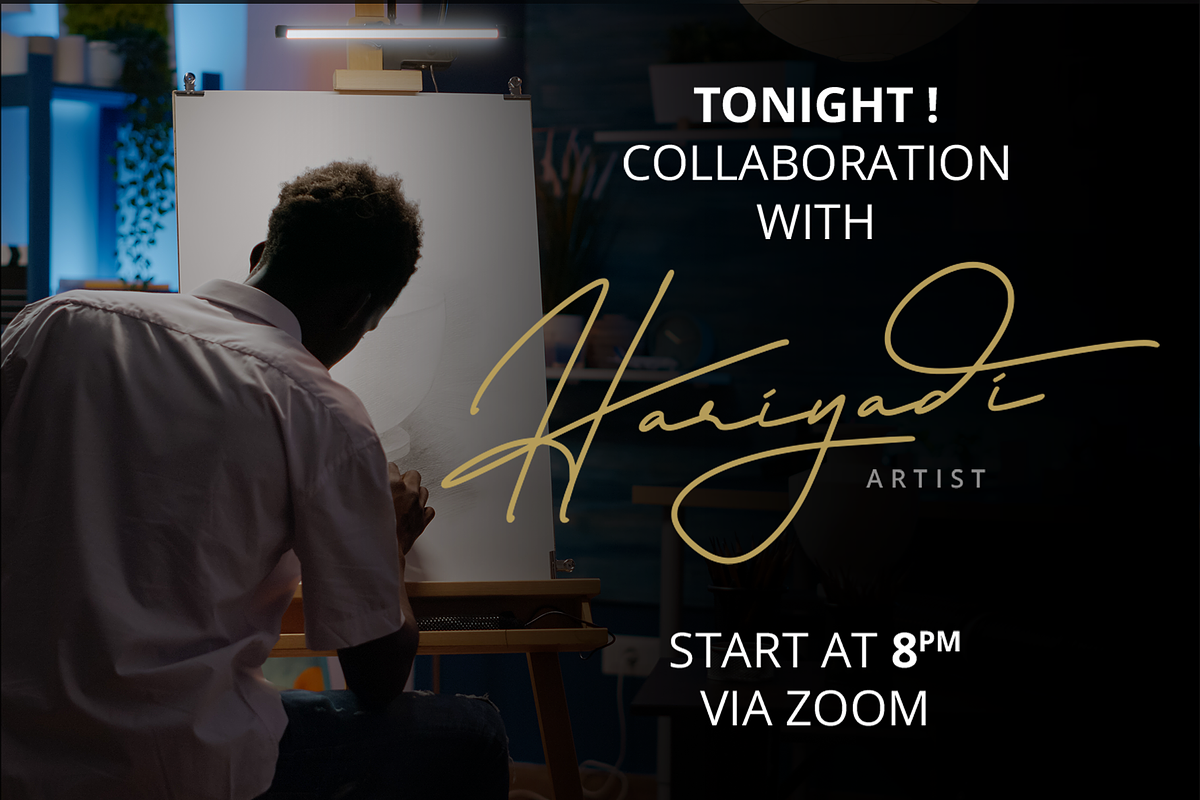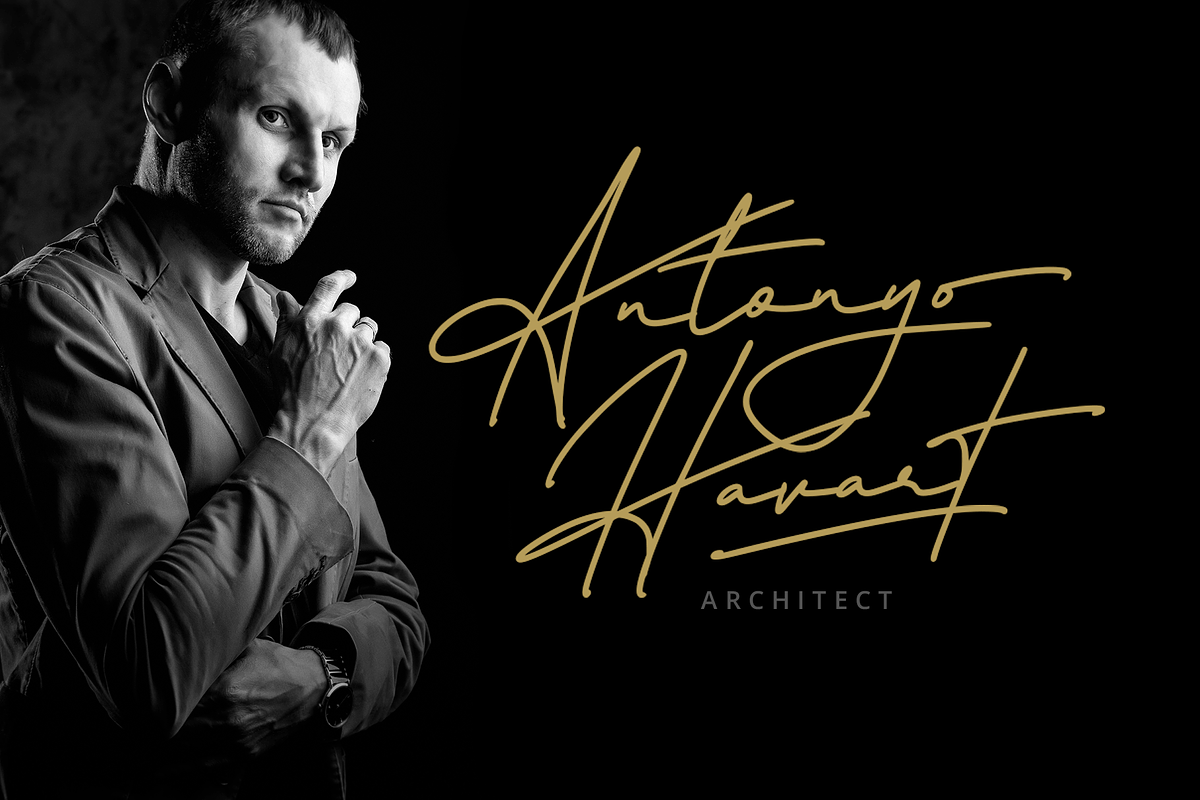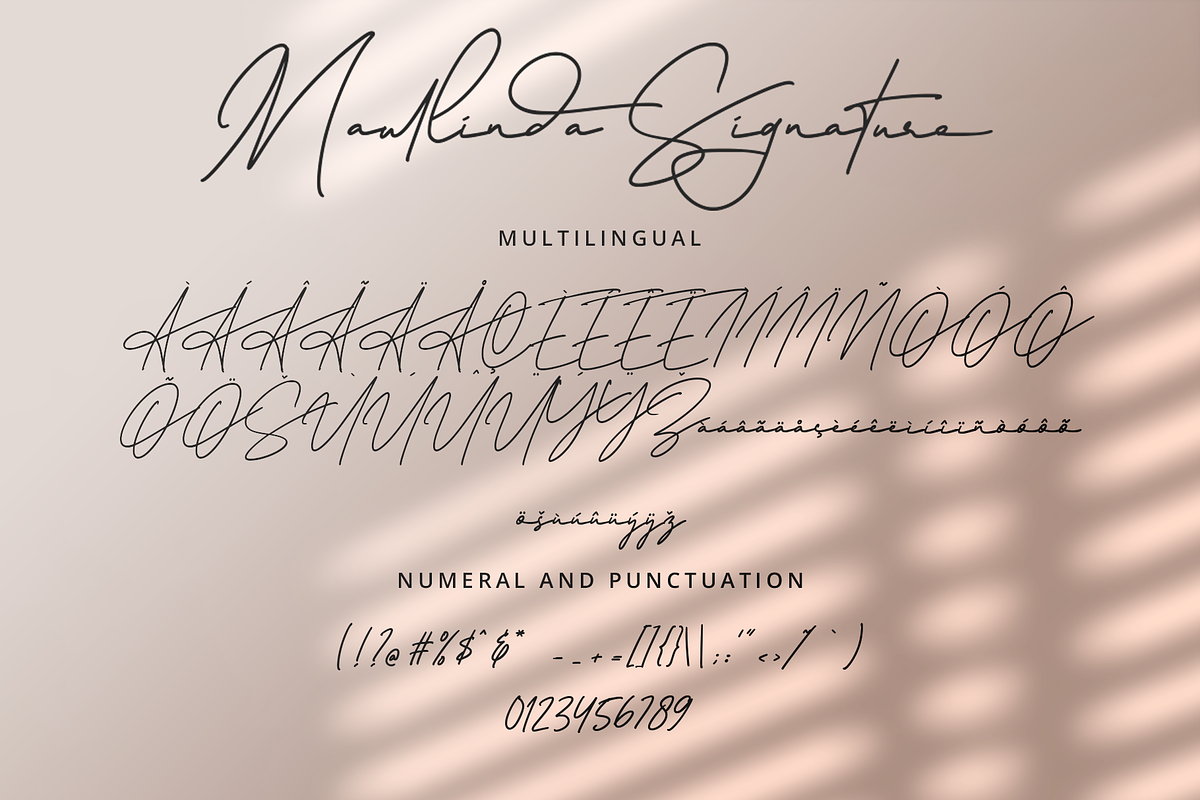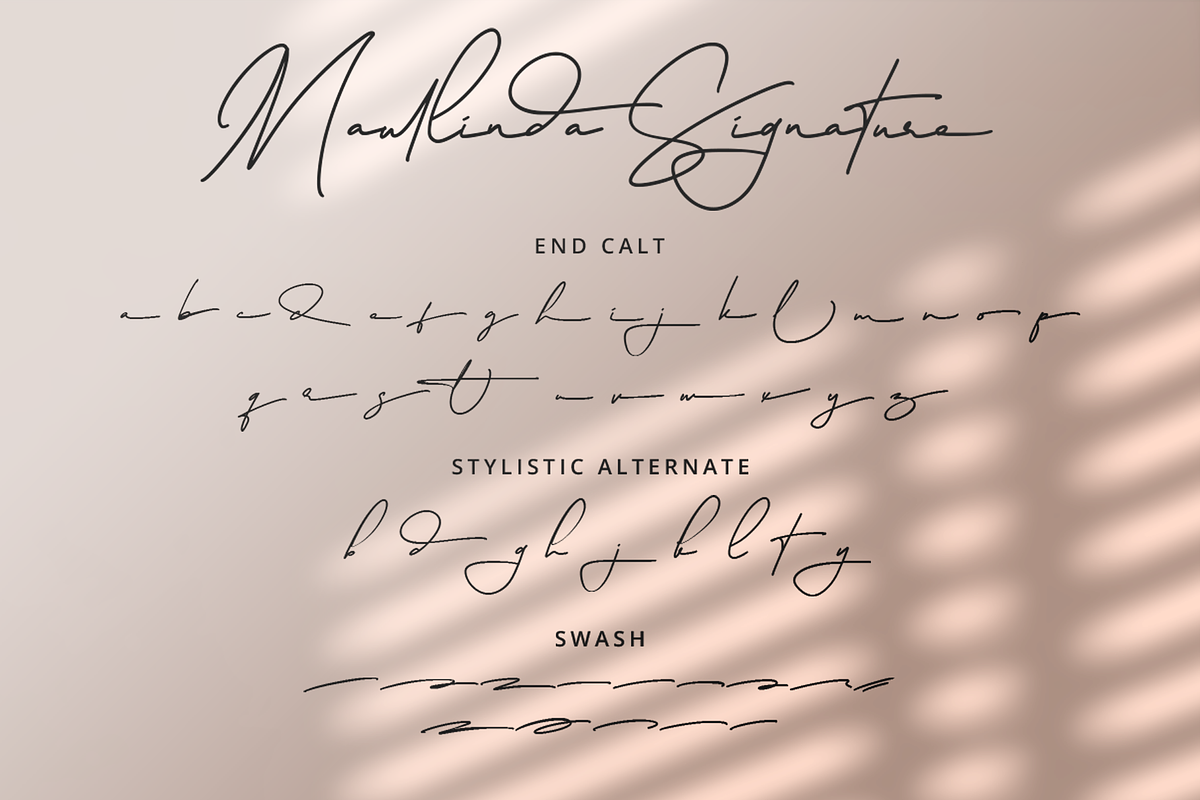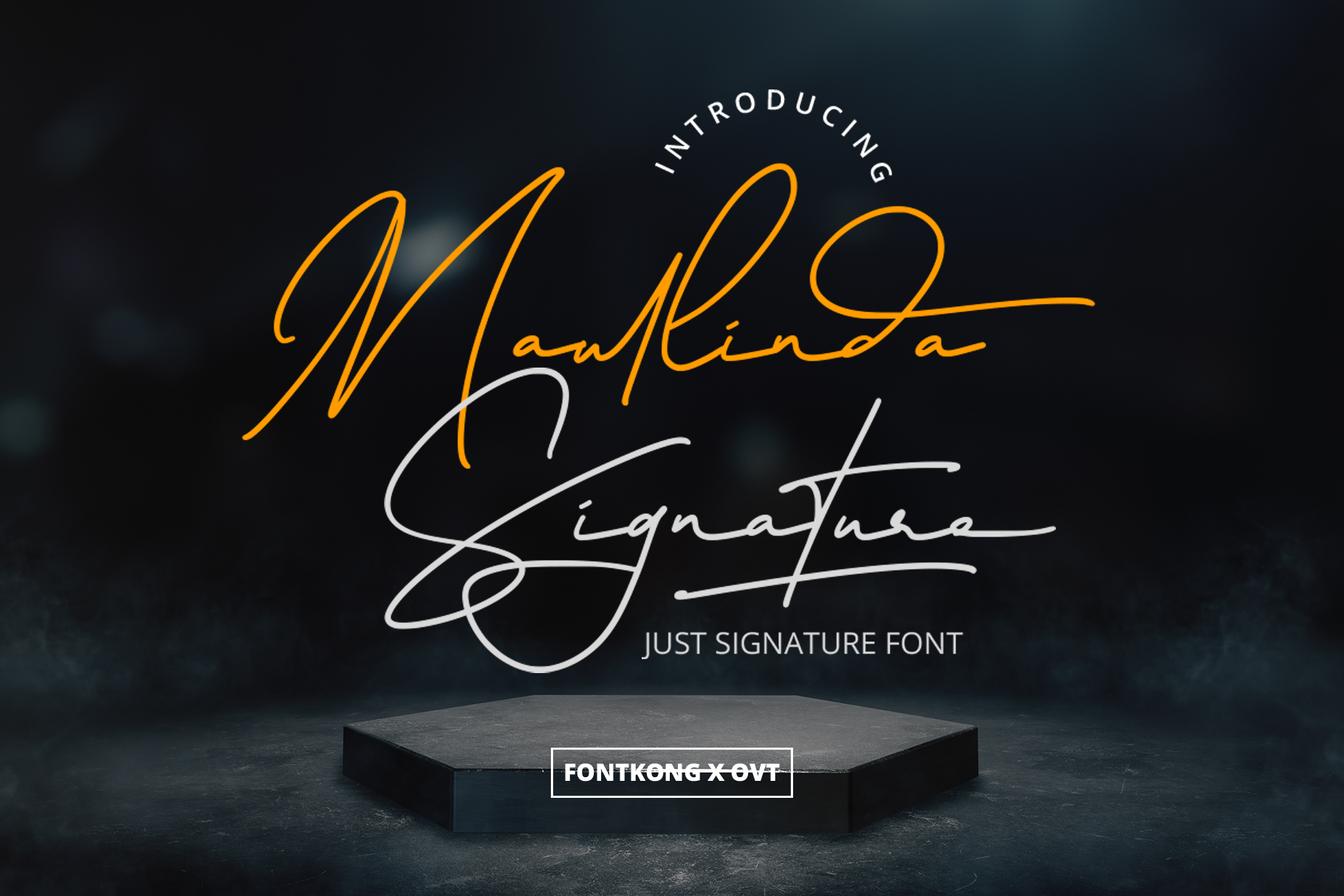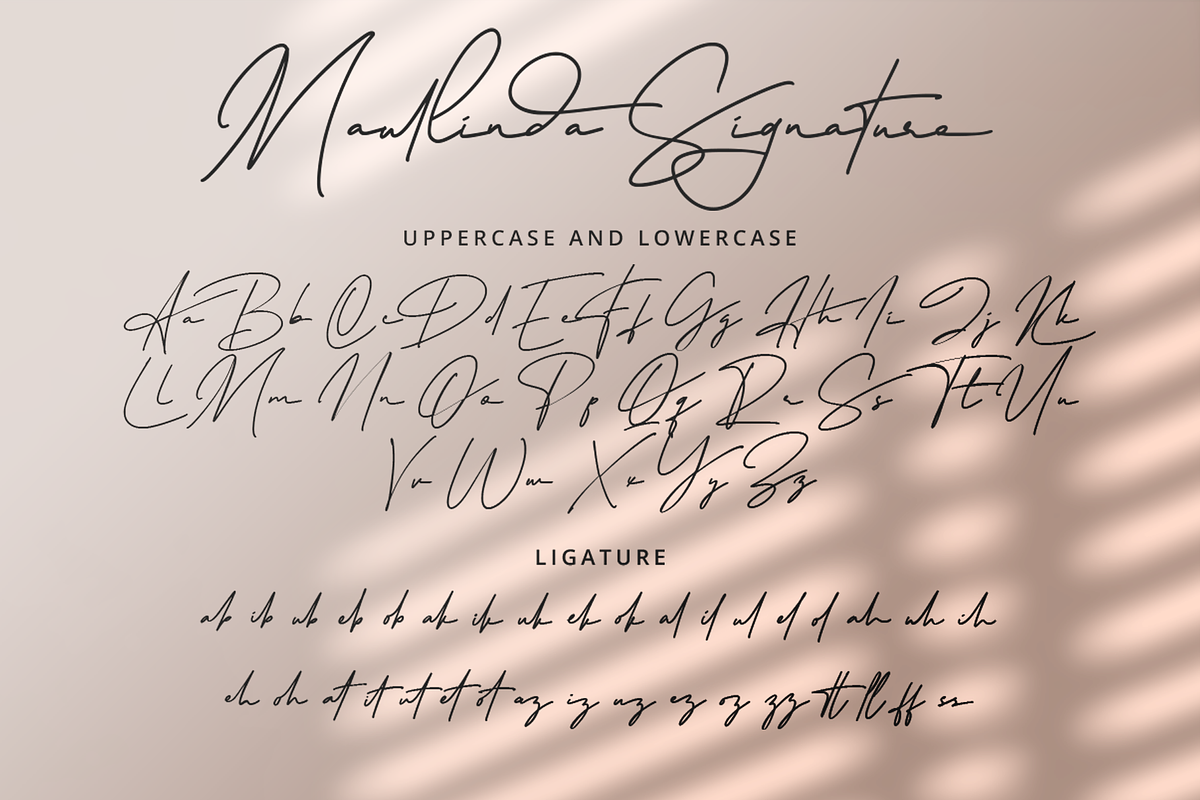
Maullinda Signature - Signature Font
Maullinda Signature - A Sophisticated Signature Font
Maullinda Signature is a sophisticated and elegant signature font designed to add a personal and luxurious touch to your design projects. With its fluid lines and refined letterforms, Maullinda Signature is perfect for classy branding, elegant invitations, personal signatures, and stylish logos. This font captures the essence of handwritten beauty, ensuring your work stands out with an air of exclusivity and grace.
Crafted with meticulous detail, Maullinda Signature features smooth and flowing characters that offer excellent readability and visual appeal. Its graceful design makes it ideal for both headlines and body text, providing a cohesive and polished look across all your visual communications. The font’s versatility allows it to seamlessly integrate into various design contexts, from digital platforms to printed materials.
Elevate your design projects with Maullinda Signature, a font that embodies the perfect blend of personal charm and sophistication. Its unique style and adaptability make it an essential addition to any designer’s toolkit for creating refined and captivating visuals. Enhance your work with Maullinda Signature and experience the allure of luxurious handwritten typography.